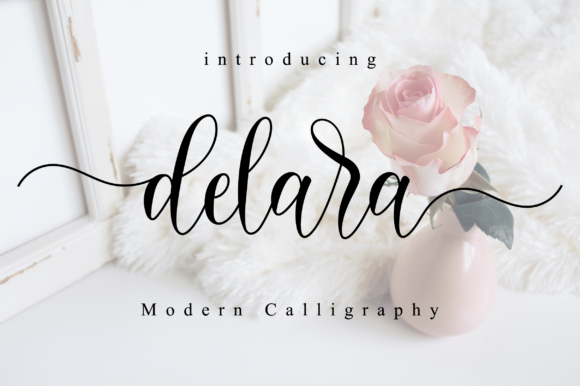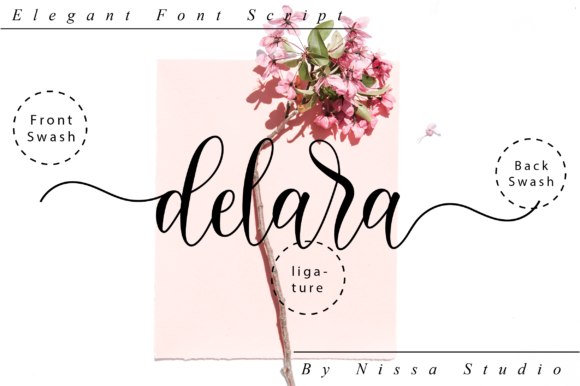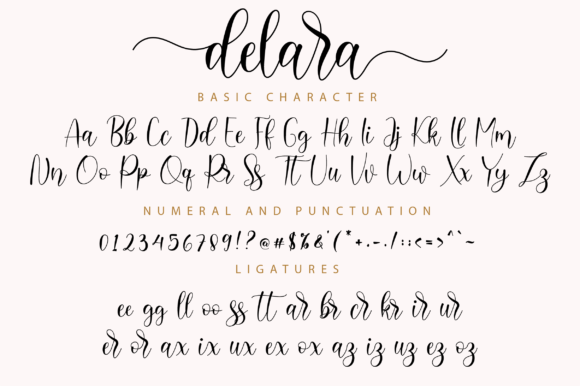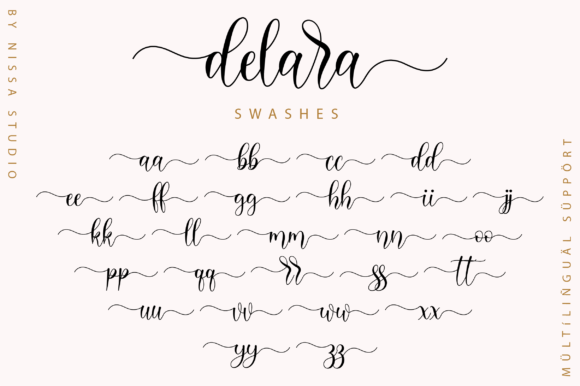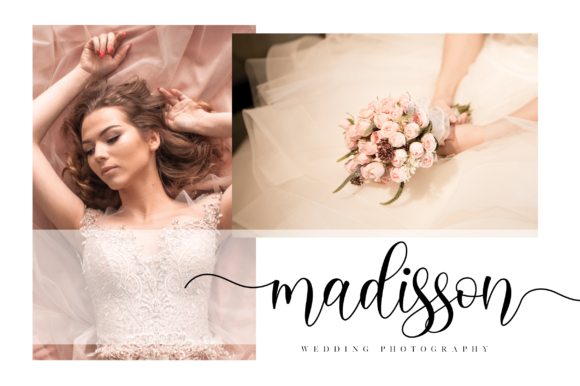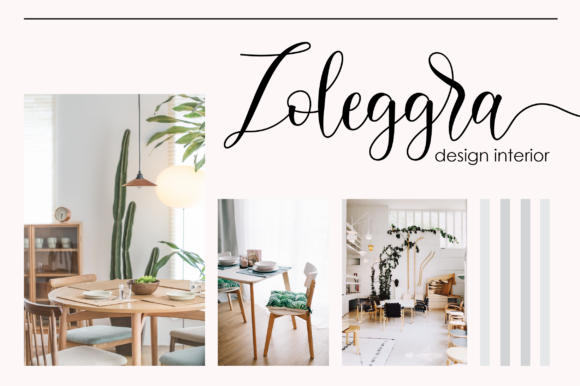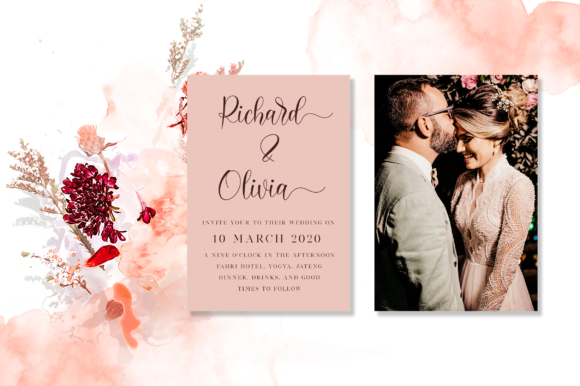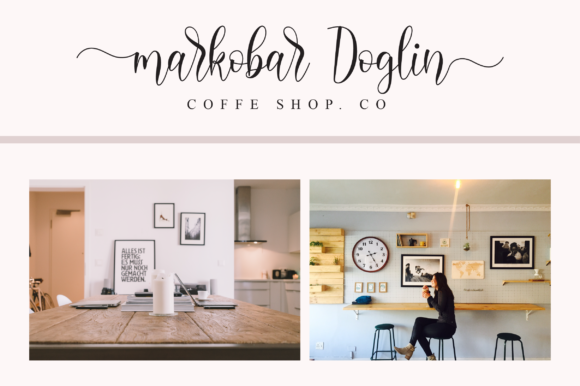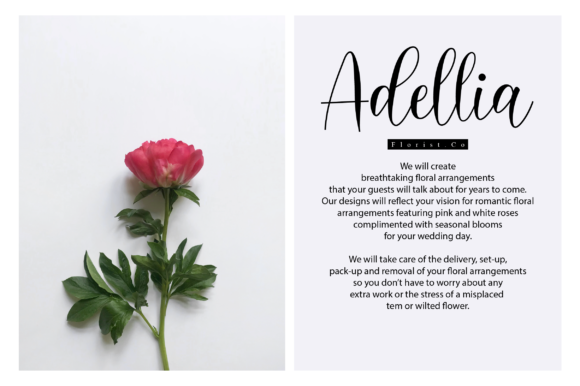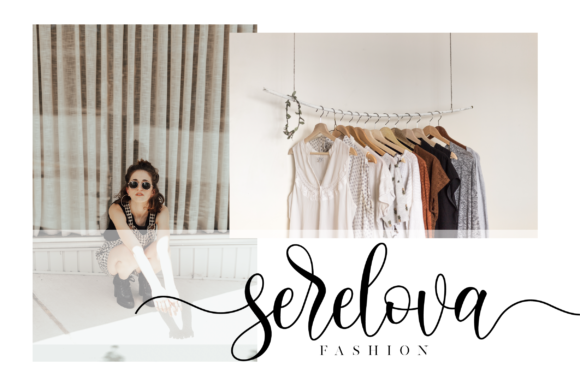
Delara Font
About Delara Font
Delara is a beautiful and elegant script font. Its modern and classy look are perfect for logos, branding, invitations, social media posts and every other design that needs a handwritten touch.